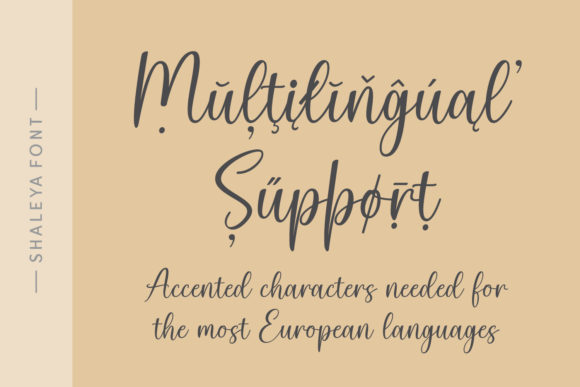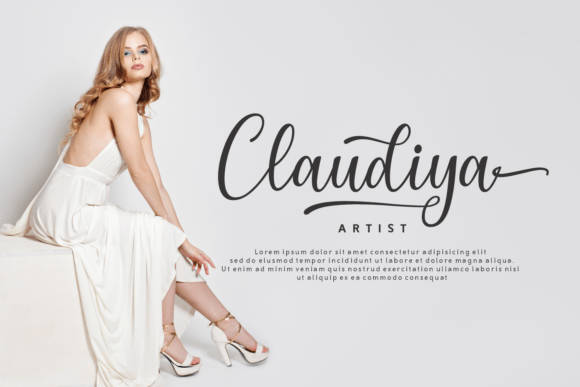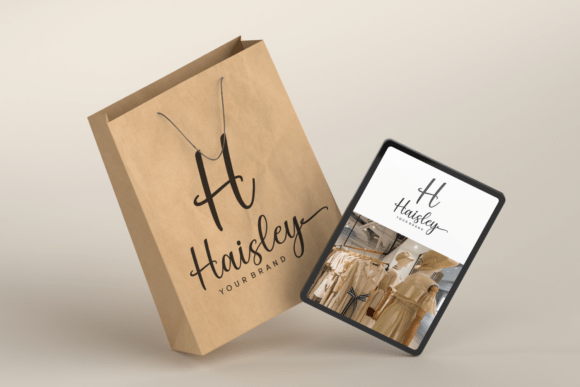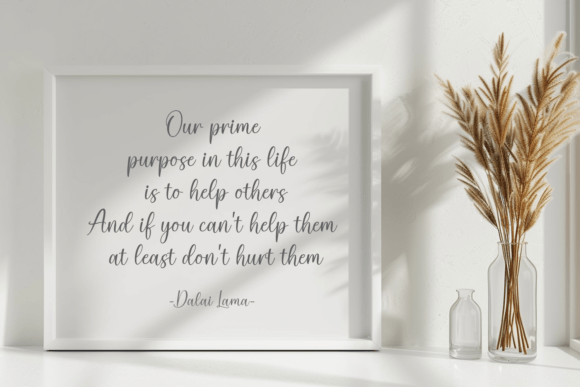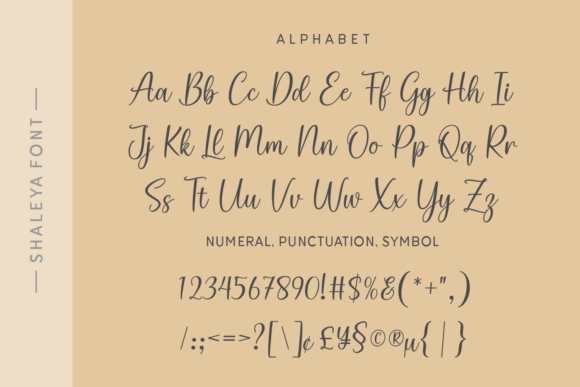
Introduction to Shaleya Font
Shaleya is a graceful handwritten script font with sweeping strokes and smooth ligatures.
It offers a natural elegance thatโ€™s perfect for boutique branding, wedding stationery, and upscale lifestyle designs .
Key Features of Shaleya Font